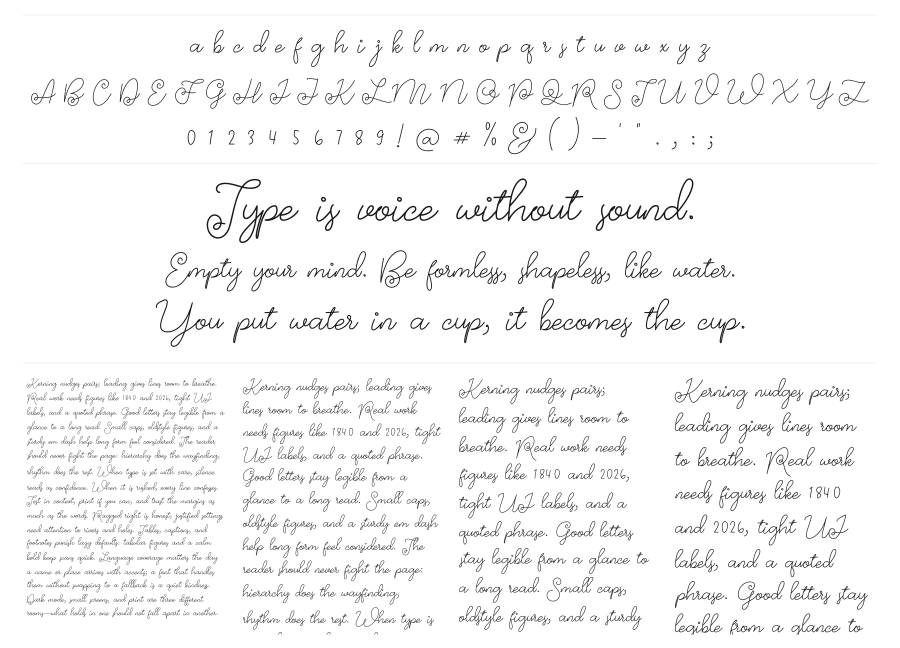
Growing Script
Growing Script is a thin monoline connected cursive with a relaxed, handwritten feel. Its flowing loops, smooth letter connections, and near-zero stroke contrast give it an airy, casual warmth. Works well for branding, packaging, and any context where a light, personal touch is needed.